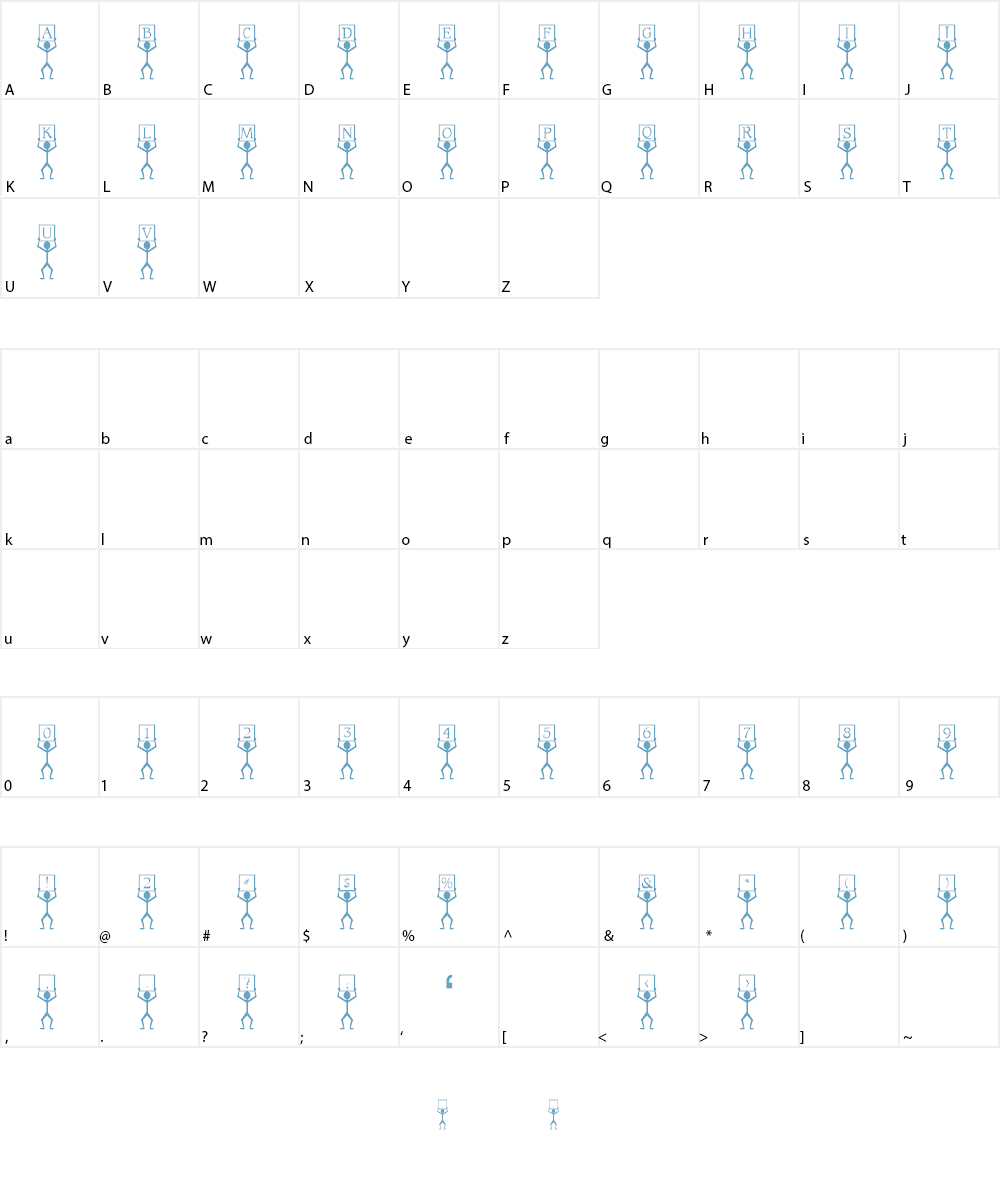
As a screen font, Cue Card is pretty illegible in sizes smaller than 36 point. Printed out, however, any size larger than 14 point works quite well. Check out underline (though this only looks good on the screen) and italic. See what happens when you have characters of several different sizes in one line.